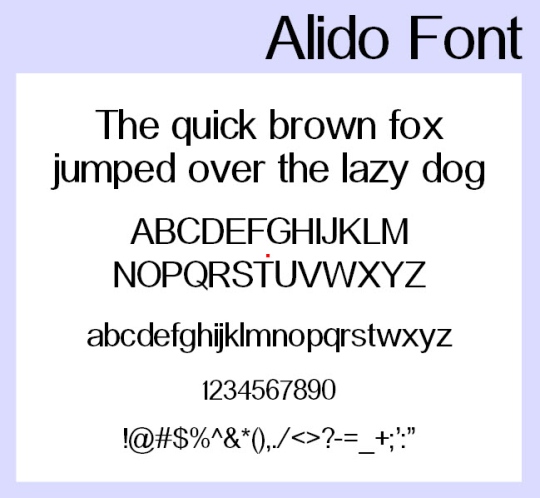
Alido OpenType Font Description
Alido is a perfectly designed Sans Serif font that turns text into a bold statement while still keeping it easy to read. Alido includes a full character set (UPPER and lower case), all punctuation, all special characters, Euro symbol, and all Latin Extended-A characters, making this font an essential addition to any collection. Use the Alido font universally for any formal or creative project including invitations, announcements, logo designs, advertisements, banners, signs, presentations, letters, holiday cards and newsletters and business cards. Alido is an OpenType font designed by the SummitType font foundry, and includes a personal AND commercial use license for up to 2-users.